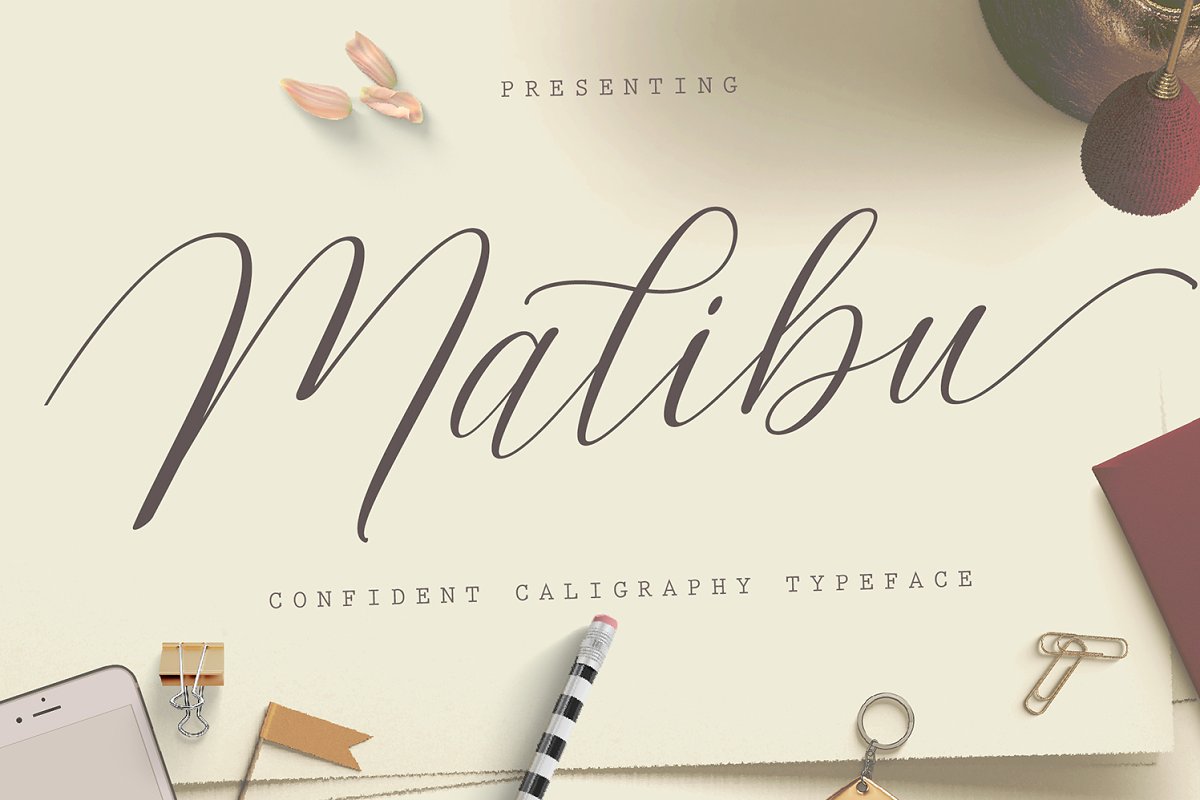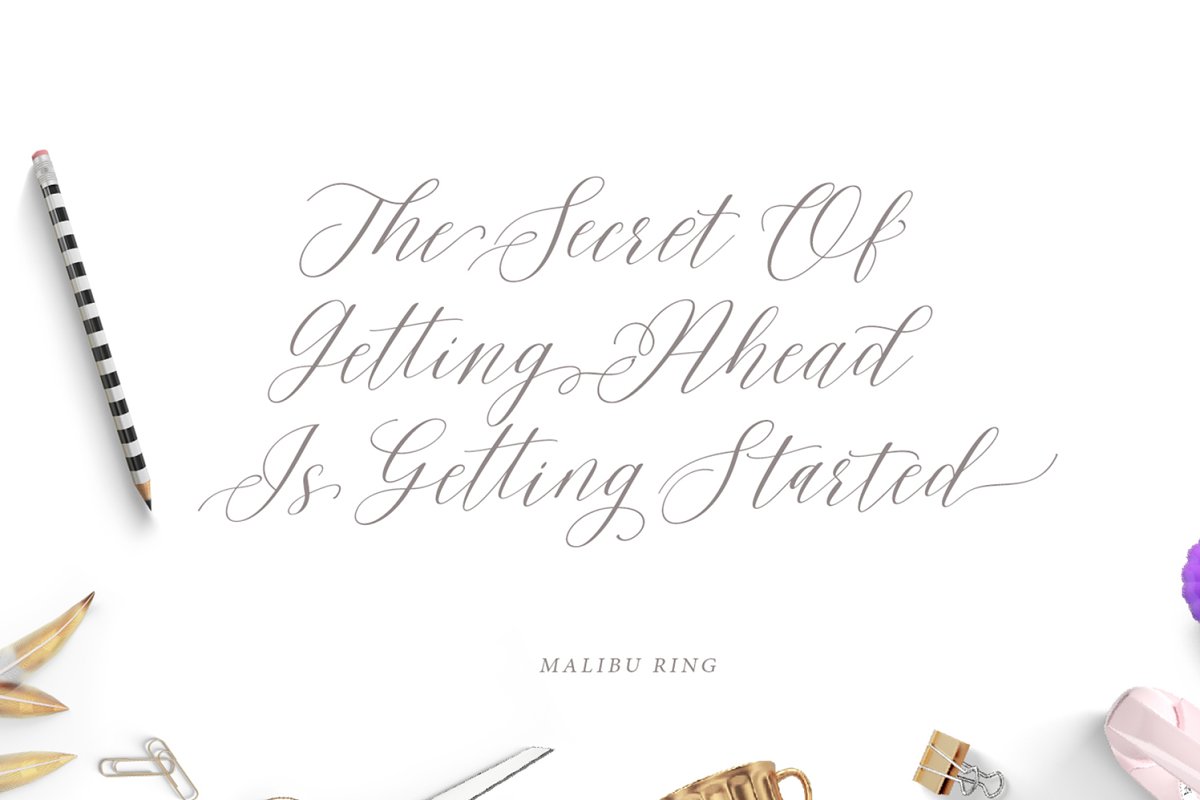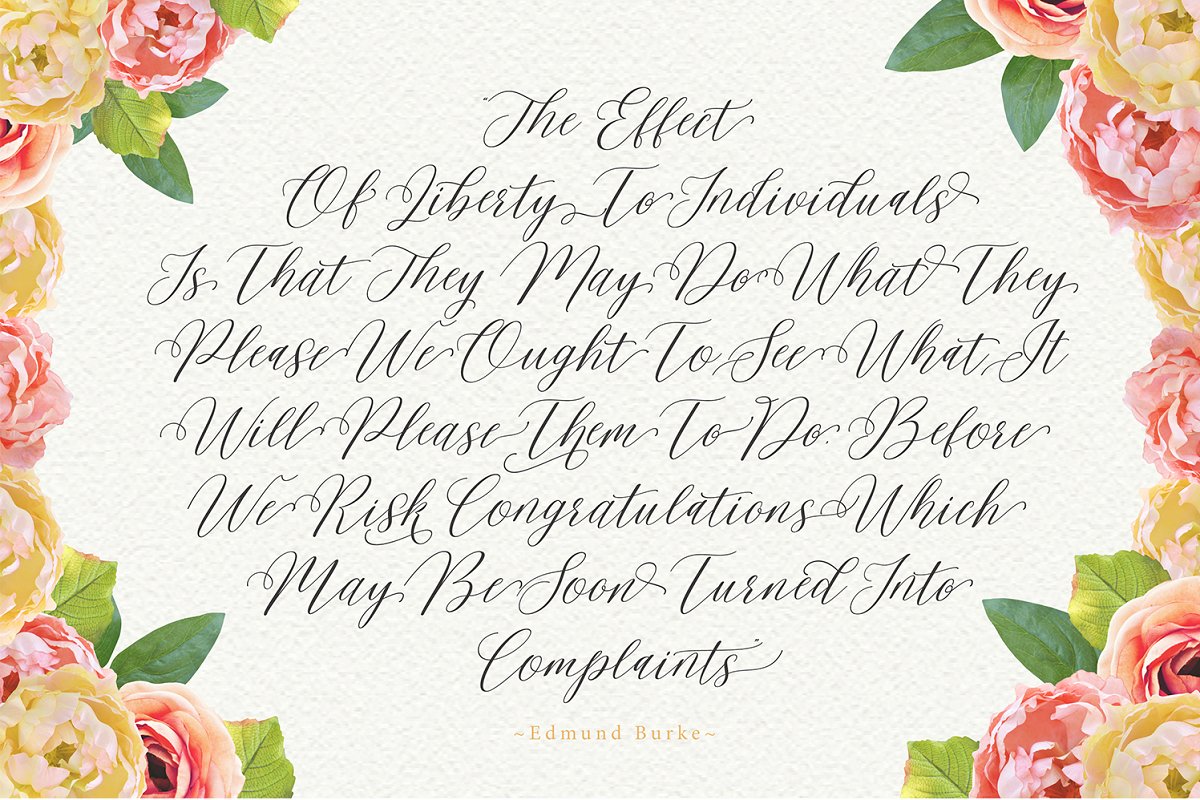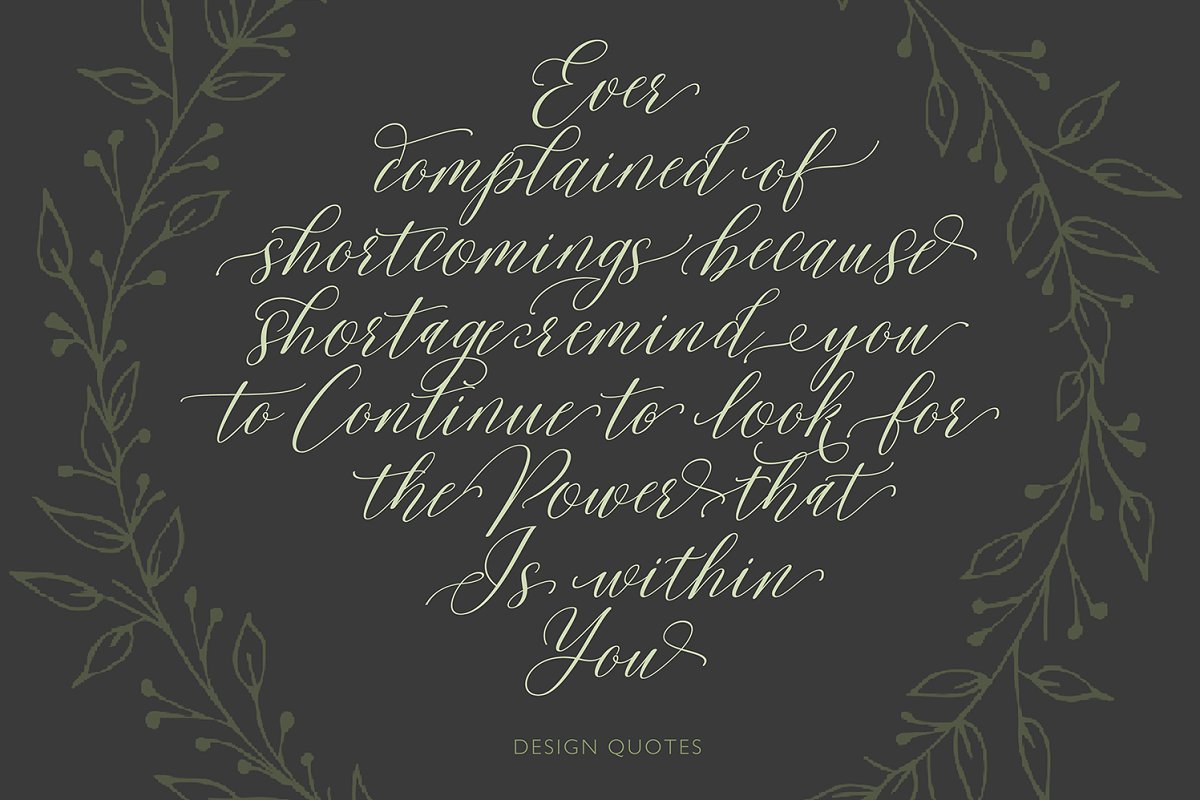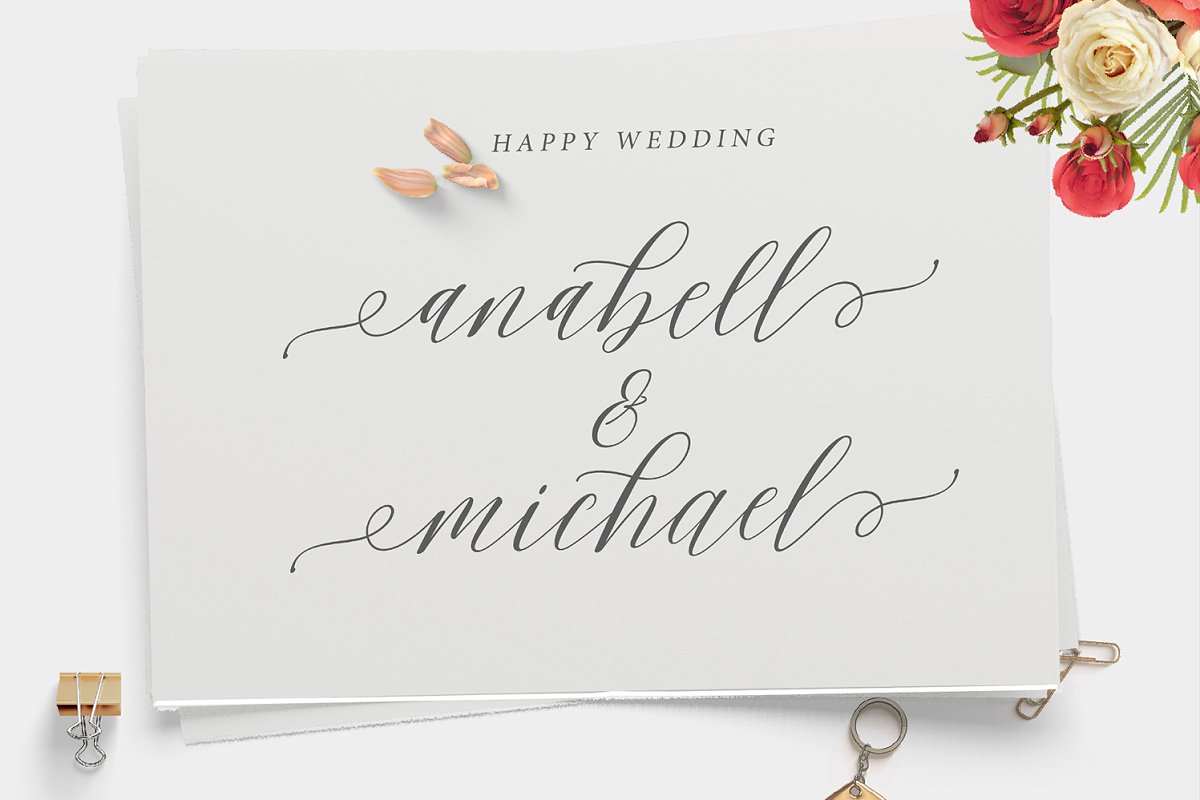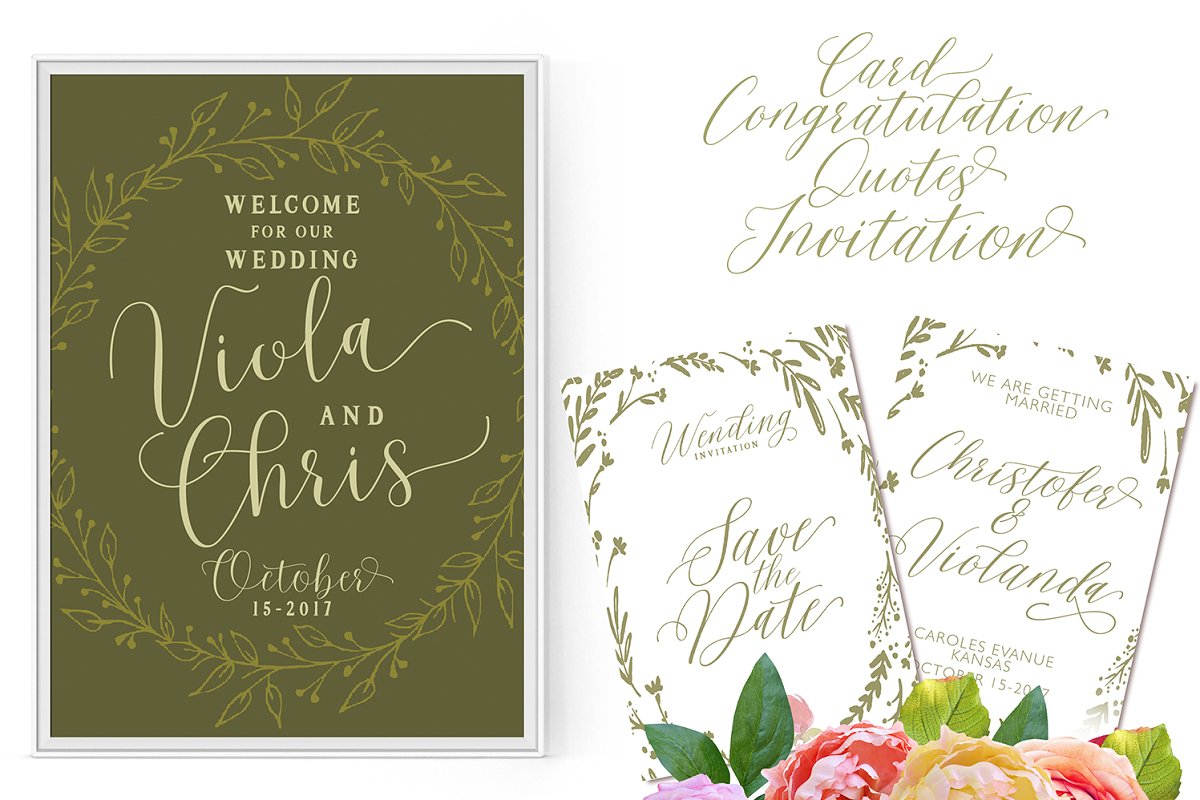
About the Malibu Script Font
Introducing Malibu the new Script calligraphy hand lettered typography modern calligraphy script, which combines classic 3 font style with a modern style calligraphyWhats INCLUDED?, Malibu Script (otf ttf), Malibu Slant (otf ttf), Malibu Ring (otf ttf) There are more than 619 glyphs in a font including stylistic sets, Contextual Substitute etc
OpenType features with the Stylistic Alternates, Alternative Contextual a few characters that allows you to mix and match pairs of letters according to your design, To access alternate glyphs, you need a program that supports OpenType features such as Adobe Illustrator CS and Adobe InDesign, Corel Draw, Microsoft Word 2010
Can be used for various purposes such as title, signature, logo, wedding invitations, t-shirts, letterhead, signage, labels, newsletters, posters, badges etc,